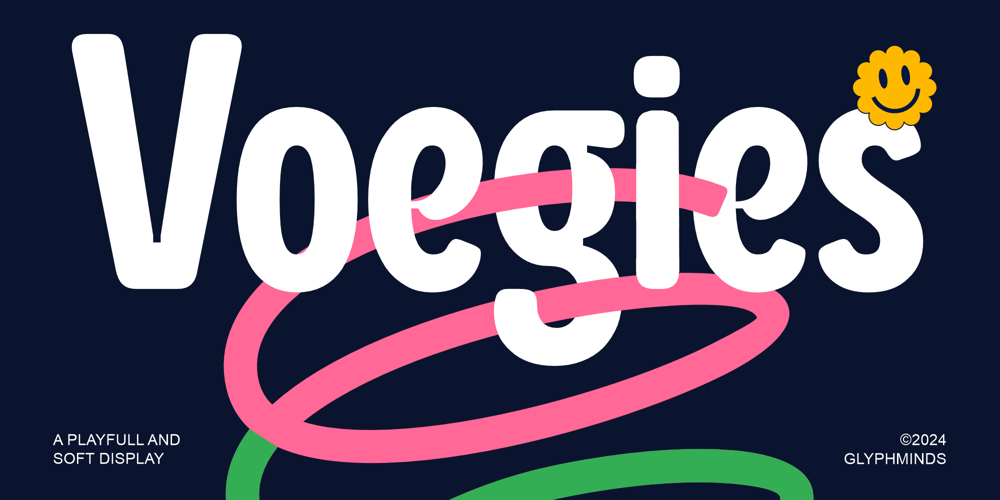
Voegies Font Family was designed by Baliya Ibnu Bi Malkan and published by Glyphminds Studios. Voegies contains 2 styles and family package options. Meet Voegies, the perfect blend of fun and sophistication for your design projects! With its soft, rounded curves and playful style, Voegies brings a fresh, joyful energy to everything from branding to social media graphics. Whether you’re designing for children’s products, lifestyle brands, or simply want to add a bit of whimsy to your work, Voegies will elevate your creativity with a unique and approachable aesthetic. Versatile and bold, this font will make your text stand out while maintaining a friendly and warm vibe. Ready to make your next project memorable? Voegies is here to help!